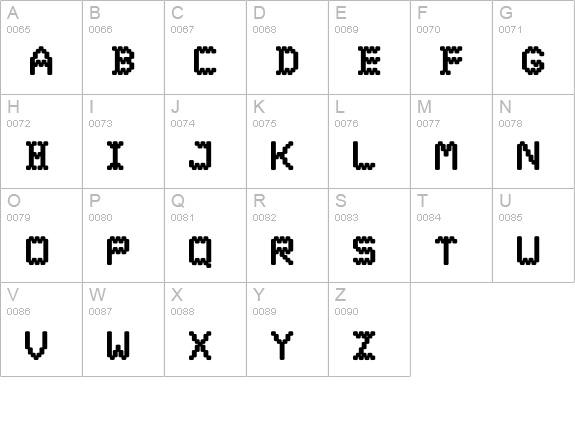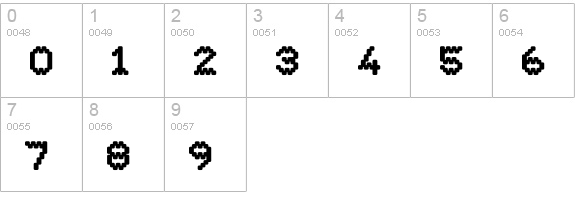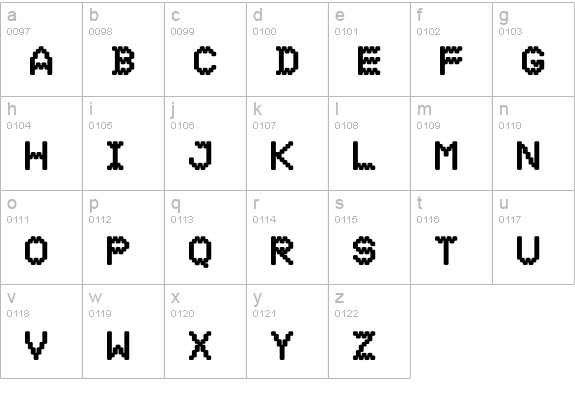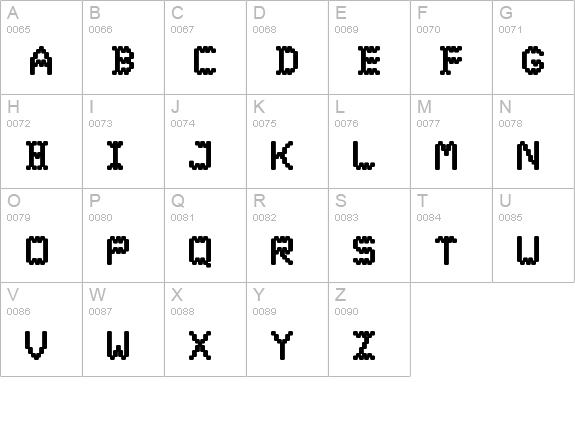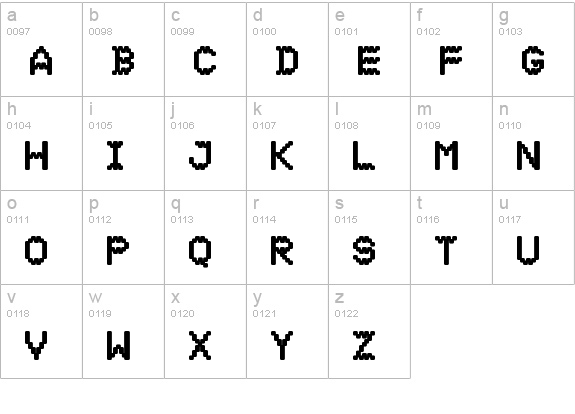
DS Ticket55 font is a modern and stylish typeface that exudes a sense of creativity and uniqueness. With its bold and eye-catching design, this font is perfect for making a statement in any project. The sleek lines and sharp edges of DS Ticket55 font give it a contemporary feel that is sure to captivate your audience. What sets DS Ticket55 font apart is that it is available for free download at FontsMarket.com. This means that you can easily access and use this impressive font without any cost. Whether you are designing a poster, logo, website, or any other creative project, DS Ticket55 font will add a touch of sophistication and flair. Add a touch of elegance to your designs with DS Ticket55 font, and watch as your projects come to life with style and sophistication. Download this amazing font for free today at FontsMarket.com and take your designs to the next level.